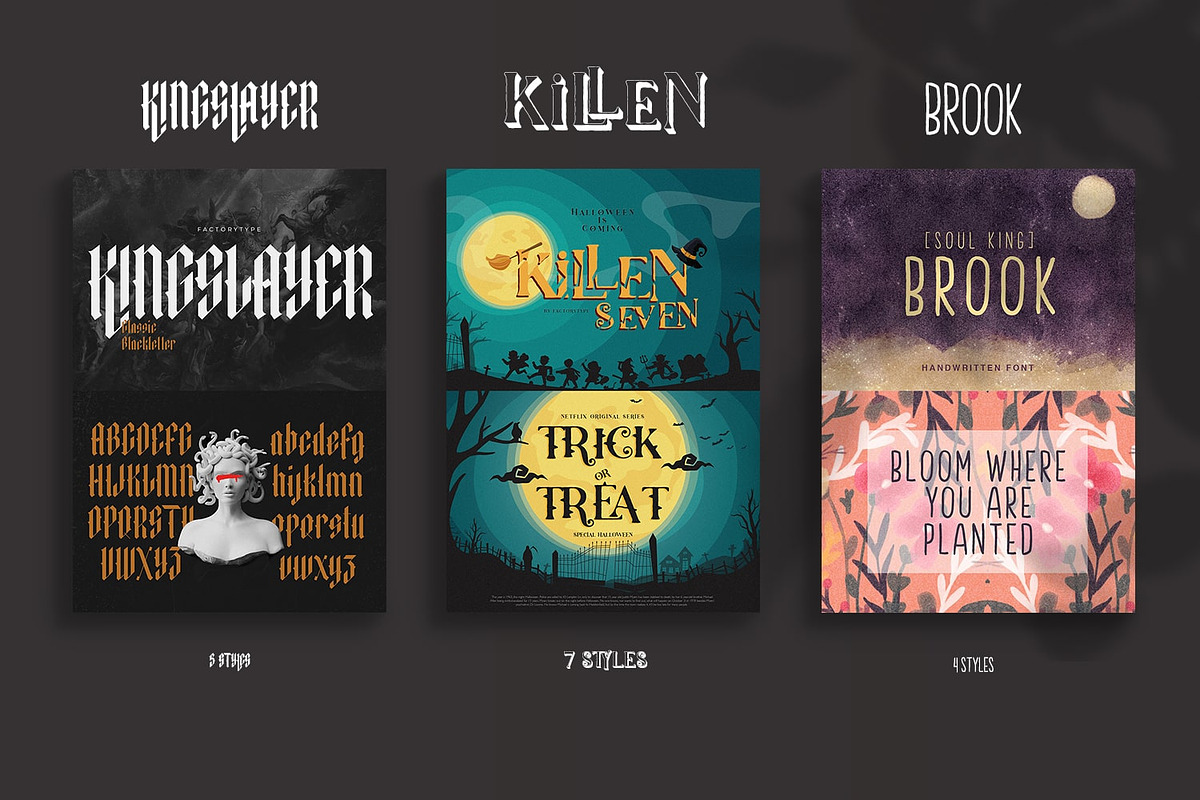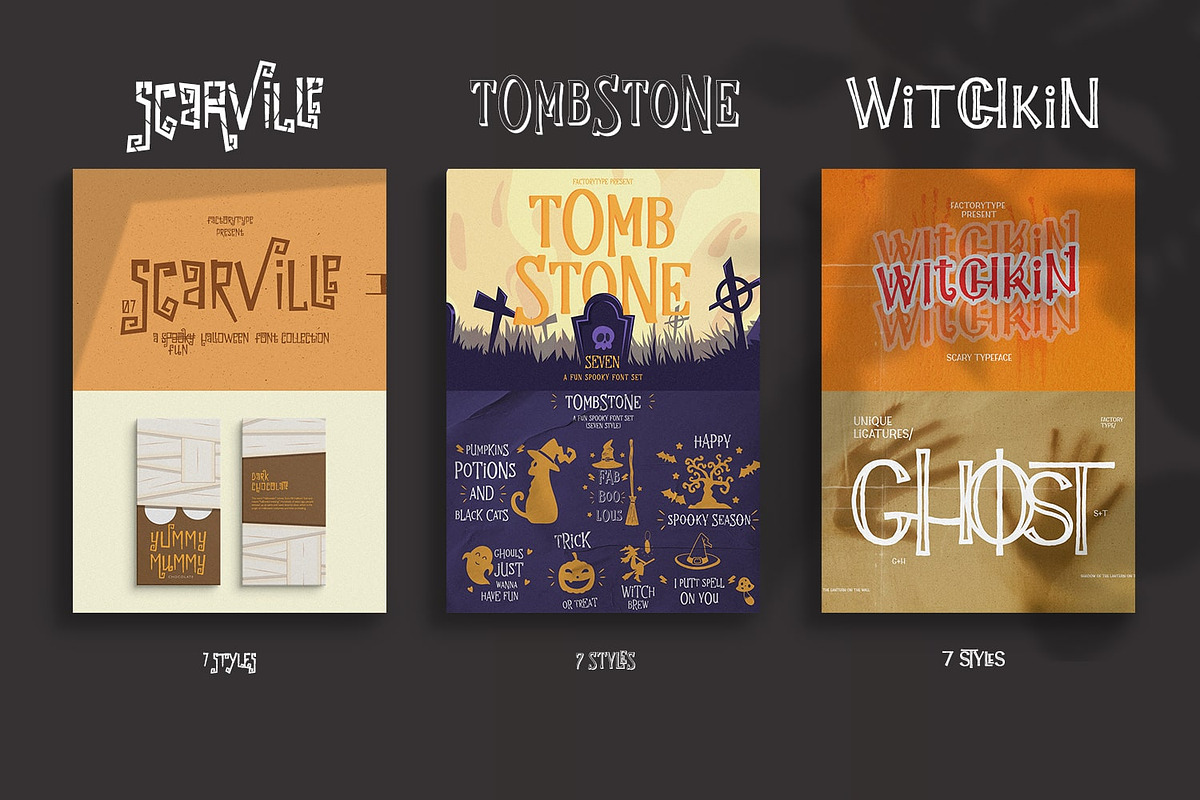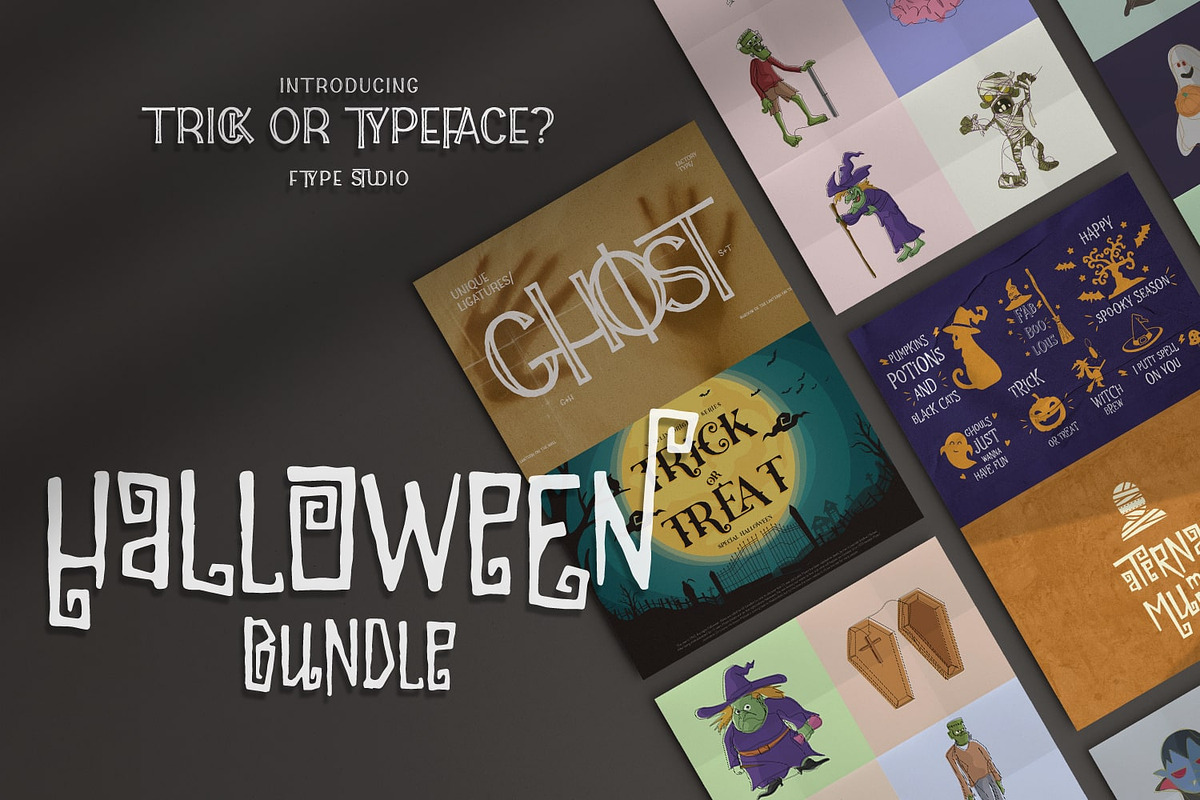
Get Hauntingly Boo-tiful Fonts with our Halloween Bundle!
Attention designers, it’s time to brew up some design magic this Halloween! Our Halloween font bundle is your ultimate toolkit for crafting spine-tingling visuals. Get over 30 spooky fonts, and exclusive bonus design resources included.
- Scarville (7 styles)
- Killen (7 styles)
- Tombstone (7 styles)
- Witchkin (6 styles)
- Kingslayer (5 styles)
- Brook (4 styles)